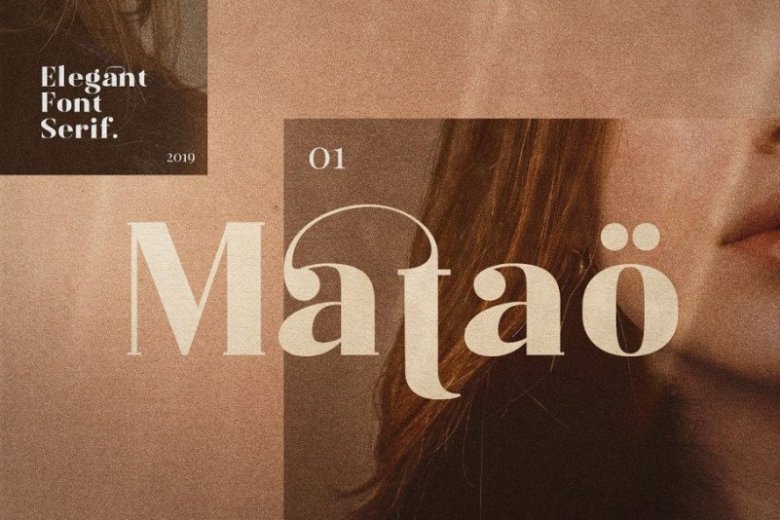
Mataö Serif Font
Say Hello Guy’s. Thank you for looking Mataö Font. This a simple and beautiful font made with persistence and passion. it have special bracketed serif shape and combine with beautiful swirl ornament’s. Mataö Serif is bold, gorgeous headlines and elegant designs with a vintage and classic flair. It’s contrasting lines and curved terminals give a sleek, elegant look to logos, holiday cards, wedding invitations, quotes, advertisements, and more. It’s a versatile typeface that’s full of character and one you’ll come back to time and again. make your awesome design layout with Mataö.